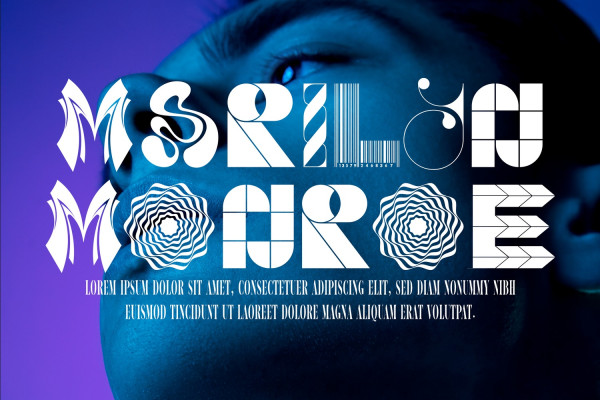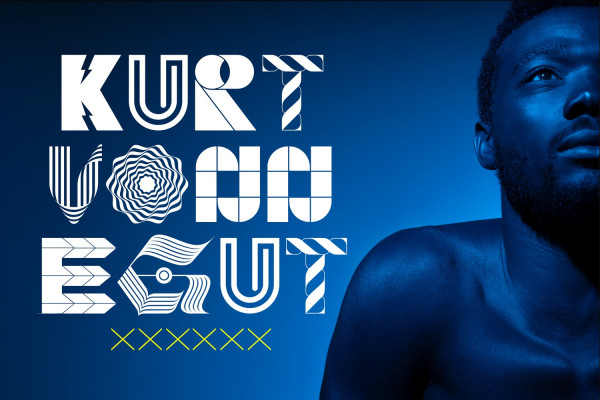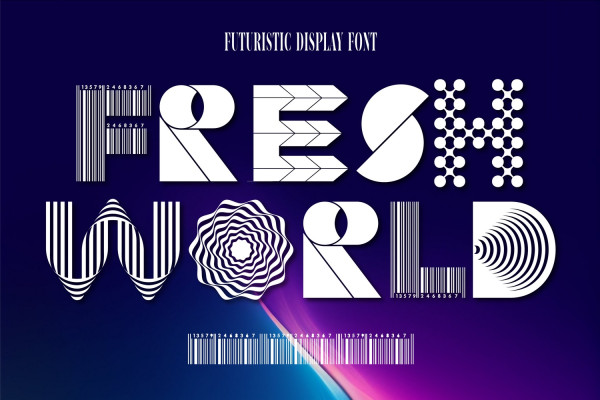
Fresh World Font
Fresh World Font is a futuristic font inspired by the world of technology and robotics. Its sleek and stylish design evokes a sense of innovation and progress, making it perfect for your next display, logotype, or movie display. Add it to your most creative ideas and notice how it makes them come alive! This Font can be used for various purposes such as Magazine Title, Poster, Logo, T-Shirt, Sub Title, Business cards, Magazines, Book Covers, Wedding Invitations,Templates Instagram Story Post, Greeting Cards, Quotes, etc.